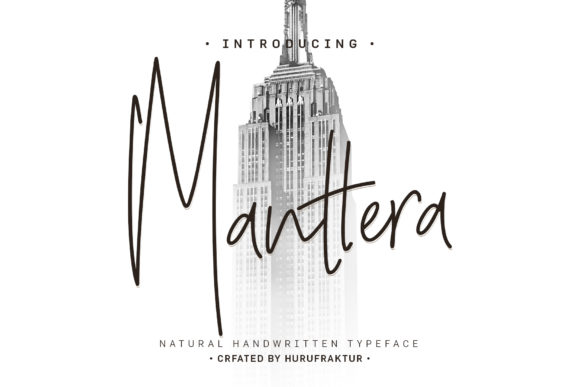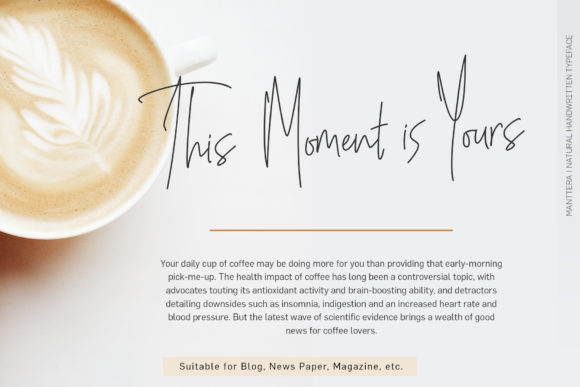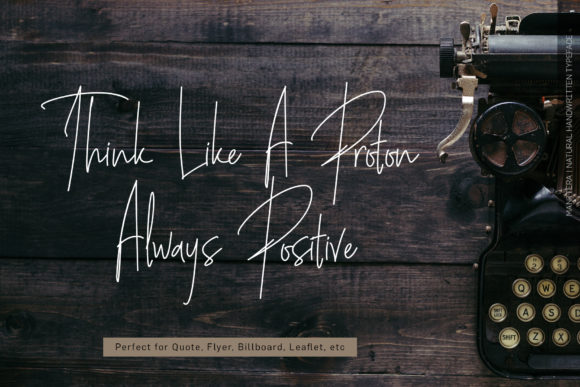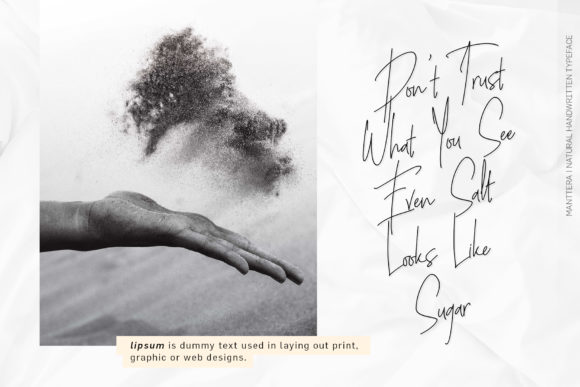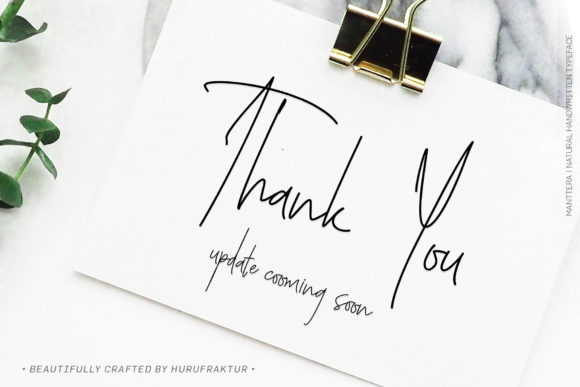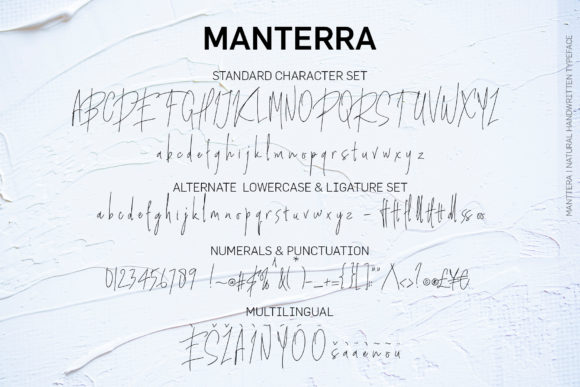
Manterra Font
About Manterra Font
Manterra is an authentic & natural handwritten script font, crafted using a real ballpoint pen. This font has been carefully designed to re-create natural handwriting, and includes a set of alternate characters to achieve those free-flowing pen strokes.